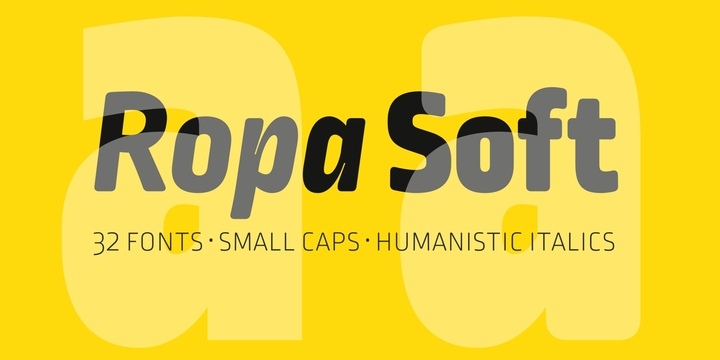
Ropa Soft Pro Font
Ropa Soft Pro Font is perfect for various design applications including fashion brand identities, textile company logos, clothing tag designs, fabric store signage, fashion magazine layouts, boutique packaging, apparel marketing materials, fashion blog headers, textile pattern catalogs, and contemporary clothing line branding. This sophisticated typeface excels in projects requiring modern elegance and textile industry appeal that communicates quality craftsmanship and contemporary fashion sensibilities.
What makes Ropa Soft Pro Font so exciting is its perfect balance between contemporary sophistication and approachable warmth through carefully crafted letterforms that suggest fine textile quality and modern fashion design. The font features soft rounded edges that evoke luxurious fabric textures, gentle curves that mirror flowing garments, and refined proportions that communicate quality and attention to detail. Its distinctive elegant character and textile-inspired aesthetics make it ideal for fashion brands seeking to communicate premium quality, contemporary style, and the sophisticated artistry of modern clothing design.
The Ropa Soft Pro Font family includes comprehensive weight options from light to bold, along with matching italic styles that provide complete typographic flexibility for fashion applications. Each weight maintains the font's signature soft elegance while offering hierarchy options for complex fashion communications. The family also features extended character sets, stylistic alternates, and professional ligatures that enhance its versatility for international fashion markets and sophisticated branding systems.
Ropa Soft Pro Font stands out through its masterful combination of professional functionality and fashion-forward aesthetics that feels both sophisticated and accessible. Its carefully refined details and optimized spacing ensure exceptional performance across all fashion media, while its contemporary character adds personality without compromising elegance. From luxury brand communications to retail signage, this font provides designers with tools to create communications that celebrate modern fashion and demonstrate sophisticated understanding of contemporary style through elegant, textile-inspired typography.